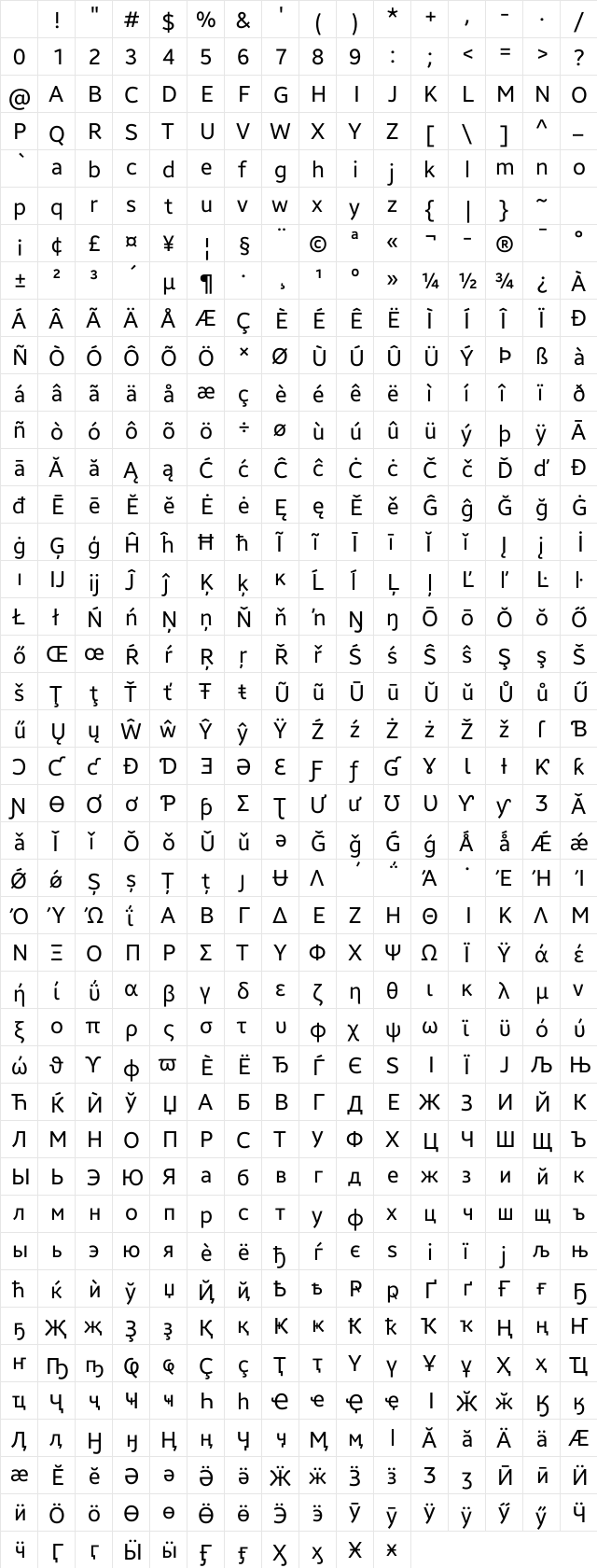
Complete Samsung Sans Regular glyph index. Displaying only characters natively supported by Samsung Sans Regular font.
Samsung Sans is a composed and adaptable typeface that performs quietly and consistently across a wide range of design contexts.